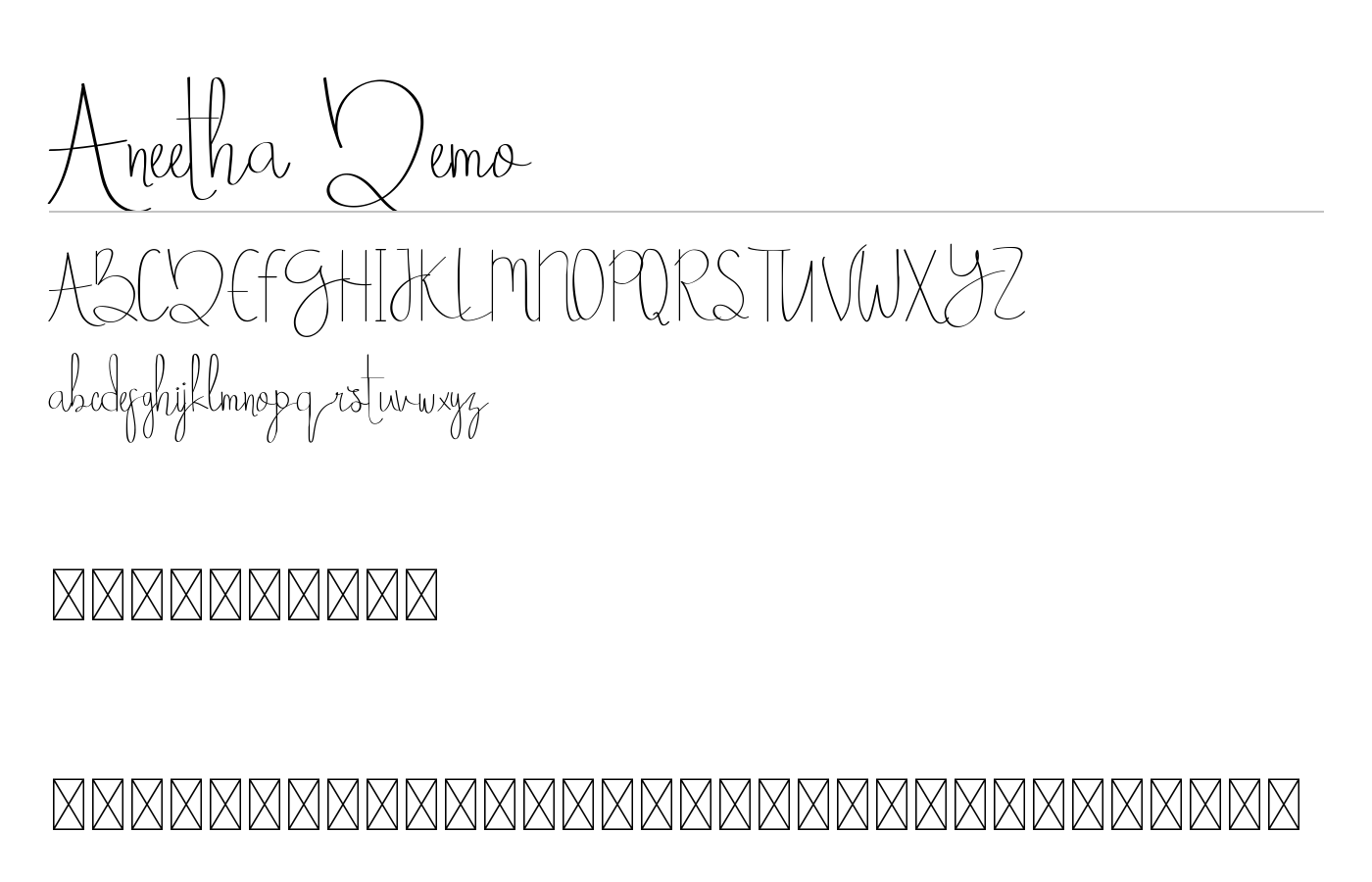
Aneetha Demo is a delicate, handwritten script font with a whimsical and elegant personality, featuring thin, flowing strokes and unique swirly letterforms. Its light weight and tall x-height give it a graceful, airy feel, making it ideal for invitations, greeting cards, or branding that seeks a personal and artistic touch. This font works best in decorative headlines or display settings where its intricate style can shine.
Aneetha Demo Font
About Aneetha Demo Font
| Font family | Aneetha Demo Font |
| Designer | Saila nurissalma |